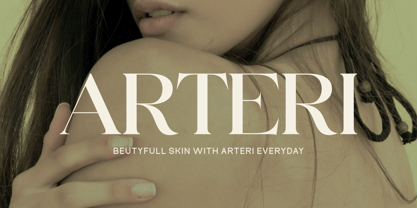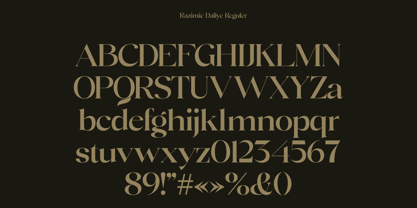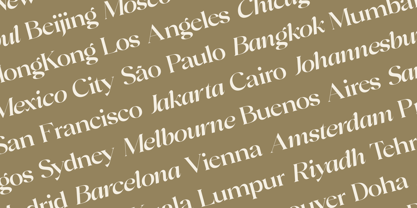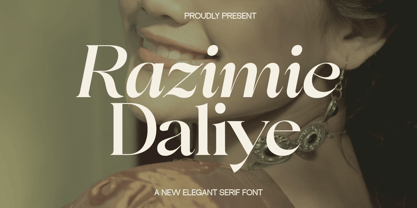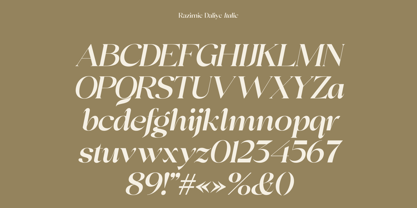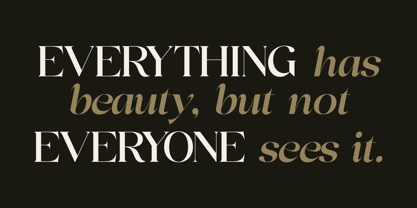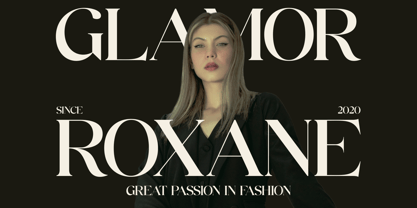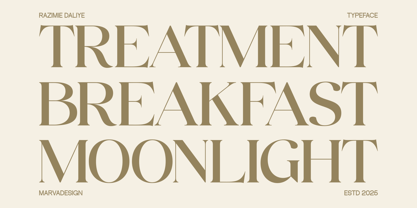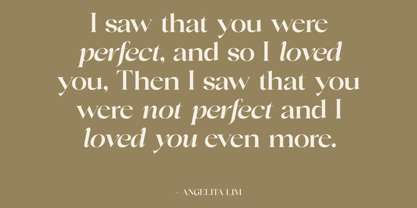
Razimie Daliye
by Marvadesign
The Razimie Daliye Font Family was designed by Febrie Setiawan and published by Marvadesign. Razimie Daliye contains 2 styles and family package options. More about this family
Razimie Daliye is a refined and sophisticated serif typeface that exudes elegance and modernity. This font is meticulously crafted with a high-contrast structure, combining graceful curves and sharp terminals to deliver a luxurious visual experience. Its balanced proportions and artistic letterforms make it ideal for upscale branding, editorial design, fashion magazines, and high-end product packaging.
Razimie Daliye features distinctive serif accents and an alluring combination of thick and thin strokes, which enhance its legibility while adding a timeless aesthetic. The font carries a strong sense of personality expressive yet controlled suitable for both display headlines and body text when paired thoughtfully.
Perfect for use in luxury fashion, beauty, weddings, and premium lifestyle branding, Razimie Daliye stands as a versatile serif font that beautifully bridges classical elegance with contemporary flair.
Designers: Febrie Setiawan
Foundry: Marvadesign